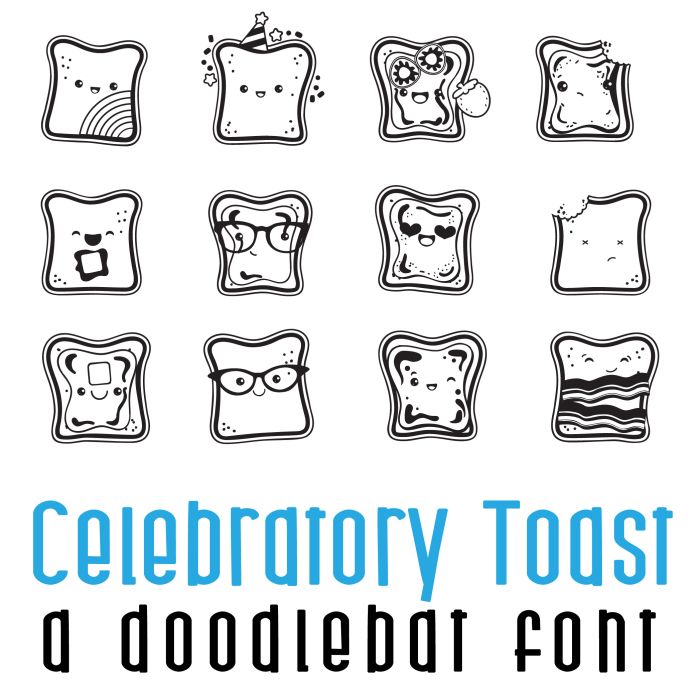
This fun doodlebat font features 26 kawaii-style celebratory toast images. Perfect for cards, gifts, classrooms, decor, parties, scrap book pages, card making and more!